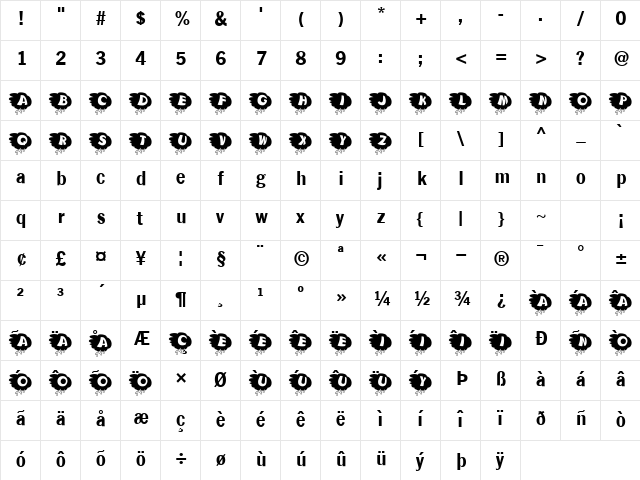
KAStormRain Regular Free Font
KAStormRain Regular
Design Context for KAStormRain
KAStormRain is a composed and adaptable typeface that performs quietly and consistently across a wide range of design contexts.